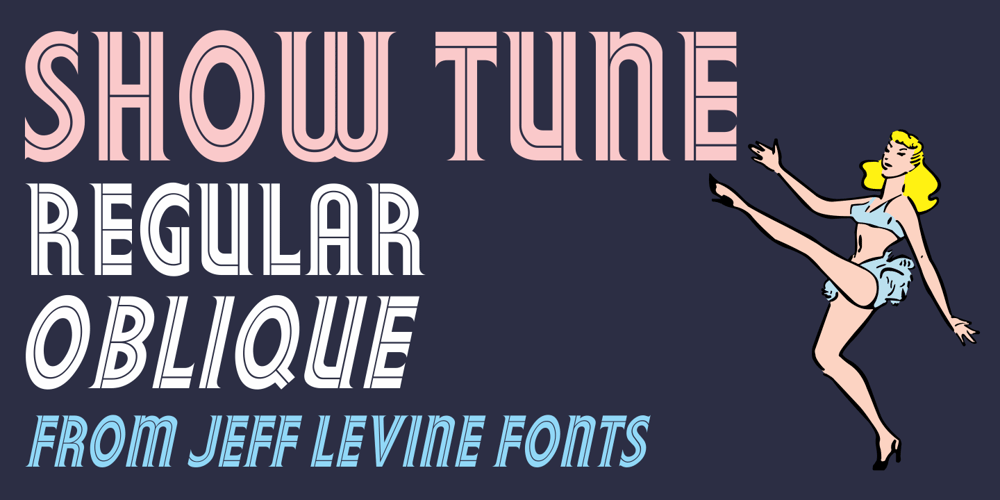
Show Tune JNL Font Family was designed by Jeff Levine and published by Jeff Levine. Show Tune JNL contains 2 styles and family package options. Hand lettering used in the trailer for the 1943 movie musical “Broadway Rhythm” was the inspiration for Show Tune JNL, which is available in both regular and oblique versions.